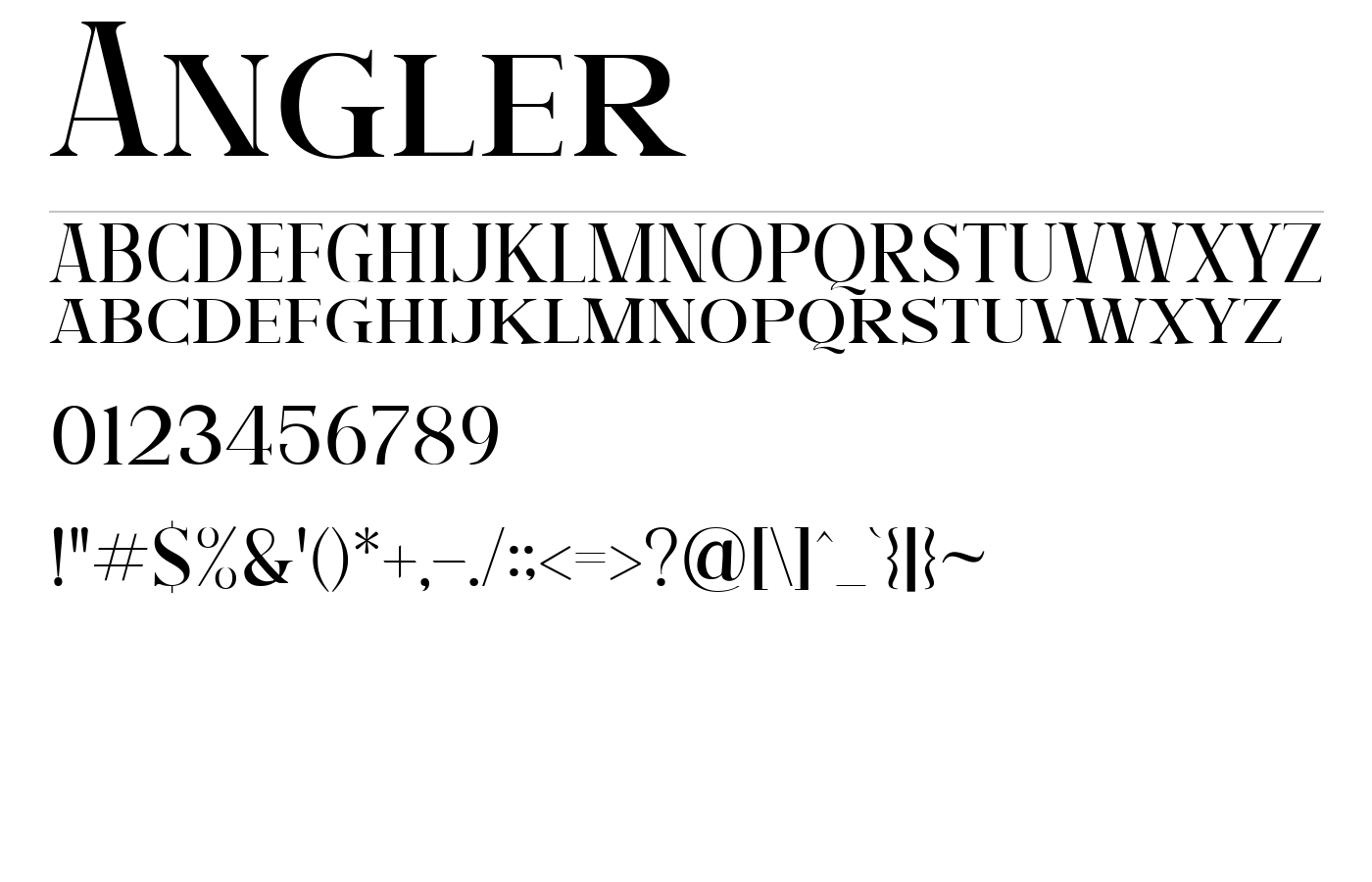
Angler is a refined serif font with a tall, elegant structure and high contrast between thick and thin strokes, giving it a classic yet modern feel. Its sharp, unbracketed serifs and distinctive letterforms make it ideal for upscale branding, editorial headlines, and luxury packaging where sophistication and clarity are key. This font’s stylish flair and strong presence work best in display settings, adding a touch of elegance to any design.
Angler Font
About Angler Font